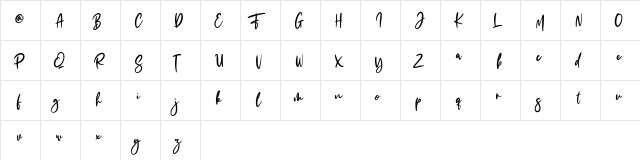
The Fashionist Personal Use Regular
| Foundry | Mas Anis |
| Designer | Mas Anis |
Design Context for The Fashionist Personal Use Typeface
The Fashionist Personal Use is a composed and adaptable typeface that performs quietly and consistently across a wide range of design contexts.